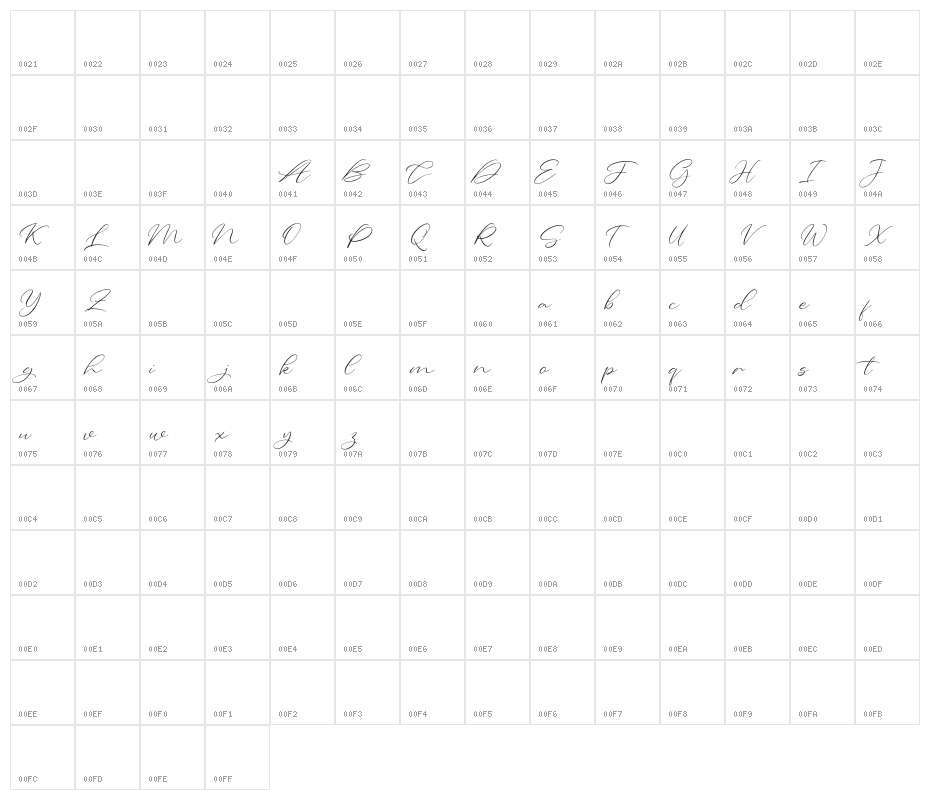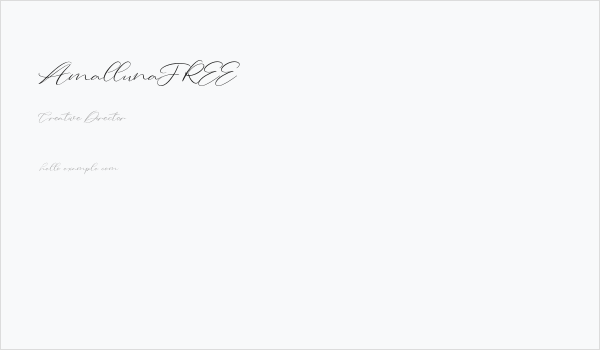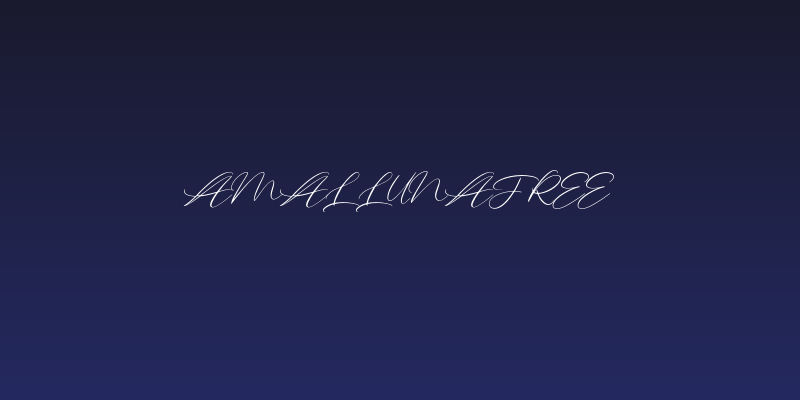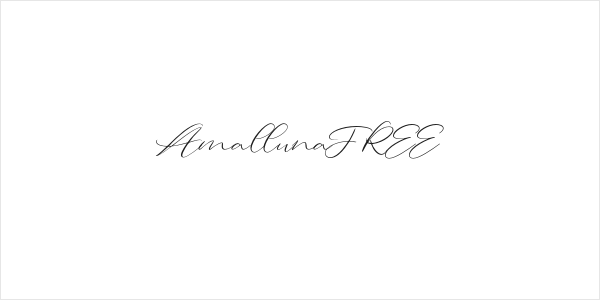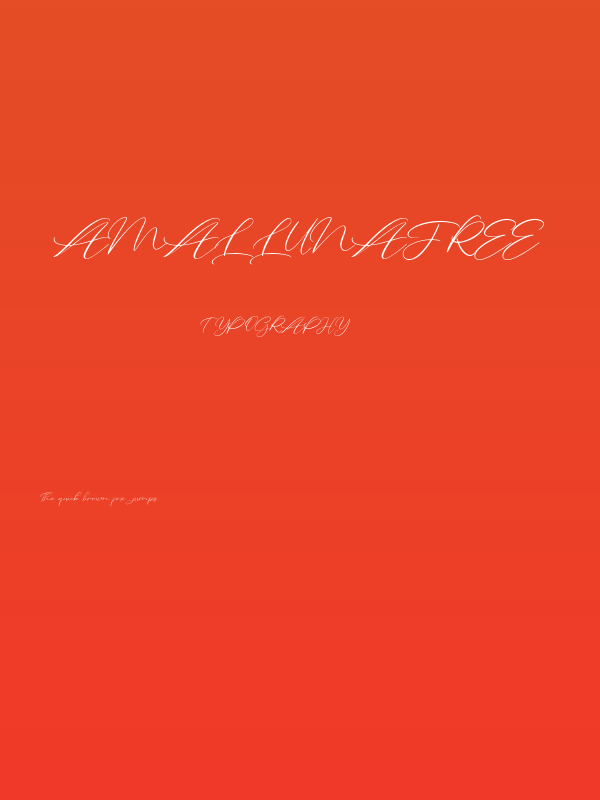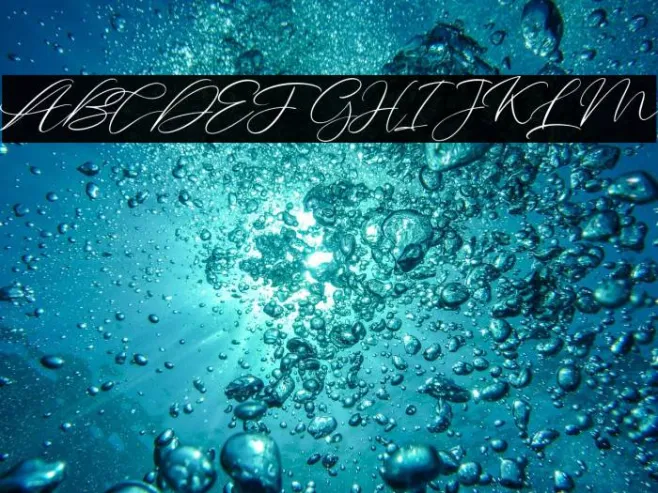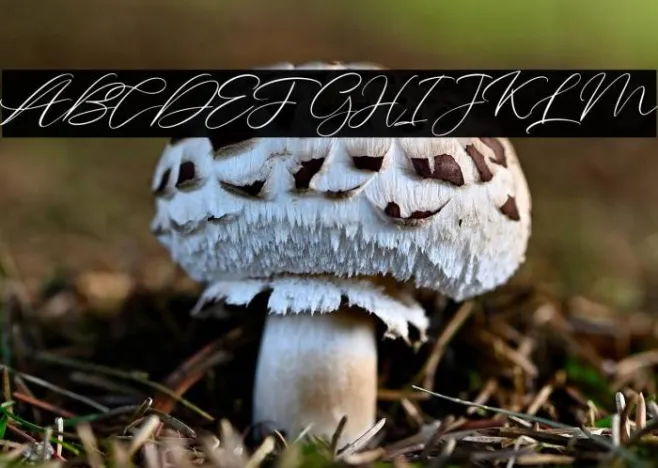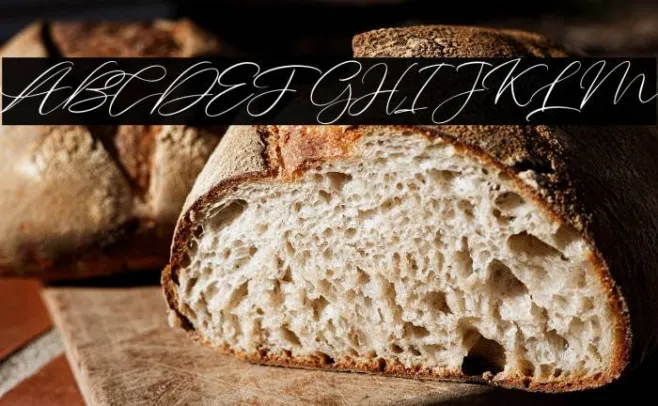
AmallunaFREE Font
AmallunaFREE Description
This font exhibits an elegant and flowing script style, characterized by its smooth, cursive letterforms that mimic the fluidity of natural handwriting. The uppercase letters are ornate with sweeping lines and loops, while the lowercase letters maintain a consistent, graceful appearance. The overall design is sophisticated, making it suitable for formal invitations, branding, and decorative purposes. The font's delicate strokes and high contrast between thick and thin lines add to its refined aesthetic, ensuring it stands out in any design context.
| Overall Style | Elegant, Decorative |
| Use Case | Headlines, Invitations, Branding |
| Proposed Projects | Ideal for wedding invitations, luxury branding, greeting cards, and decorative headings. |